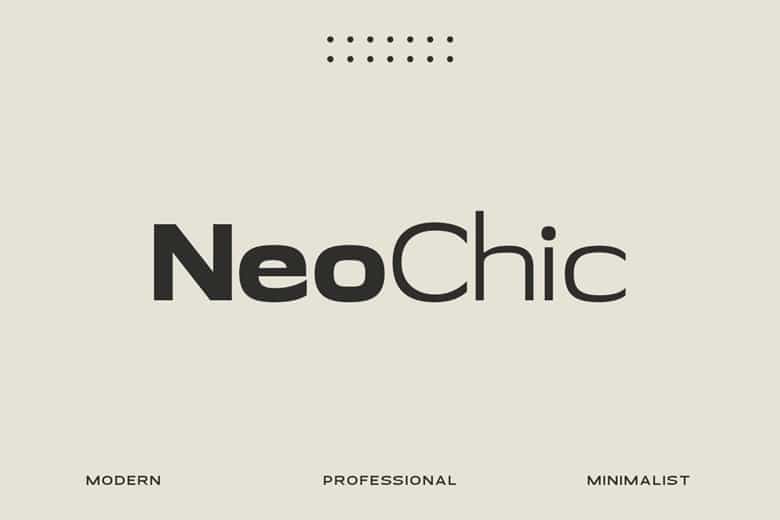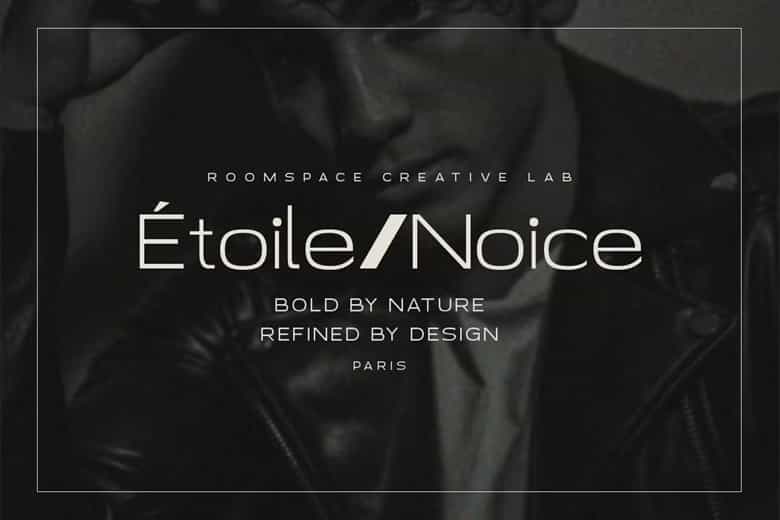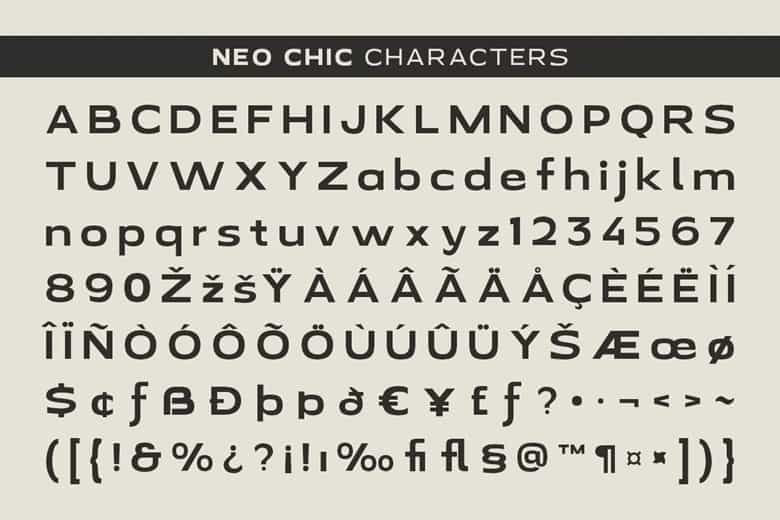
Neo Chic is a new modern sans serif font family that will give your design project a professional and minimalist look. This font has seven different weights which make it perfect for use in branding logos, websites, posters and more. Neo Chic is a fresh and clean design but has touches of vintage flair which would make it ideal for graphic designers, business people and content creators who are aiming to make a professional impression.